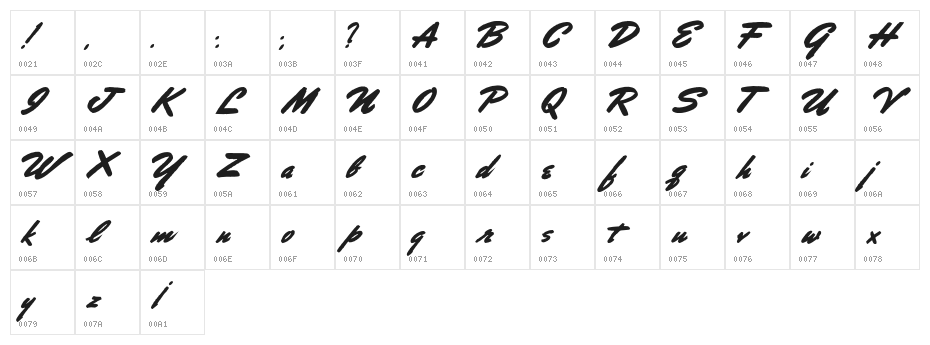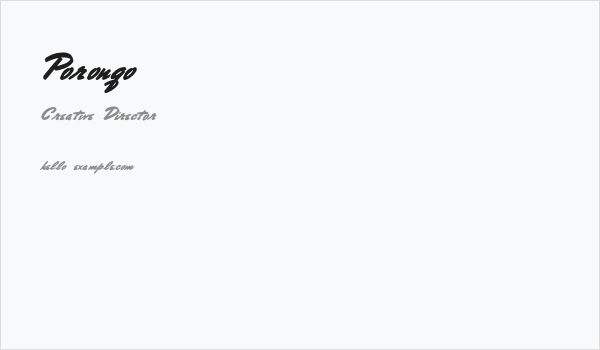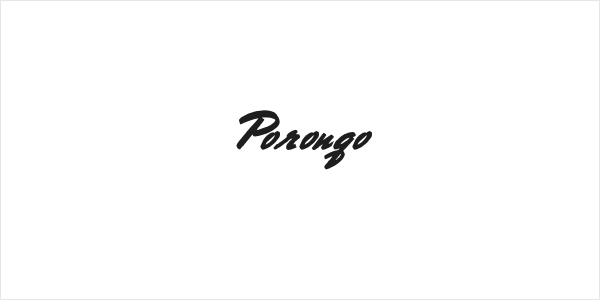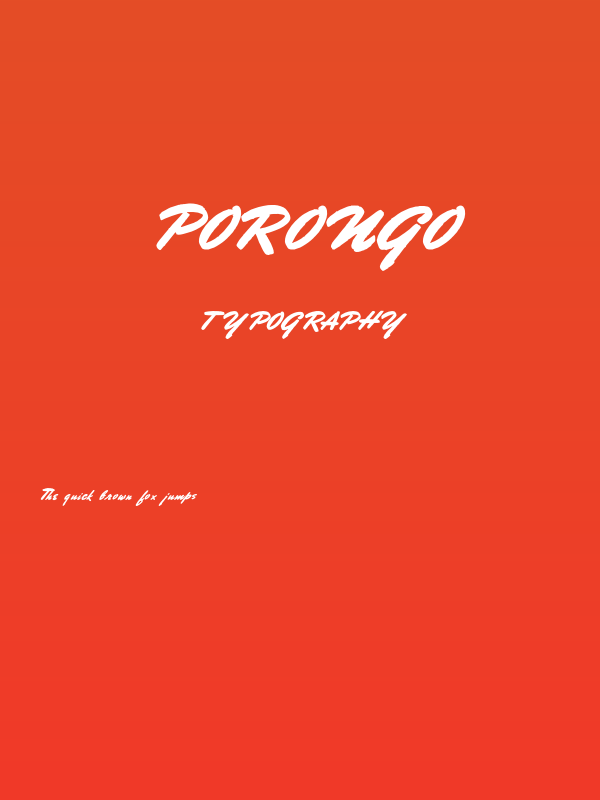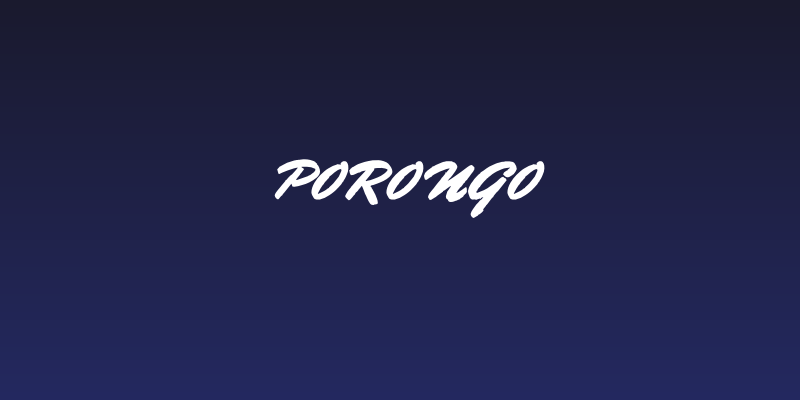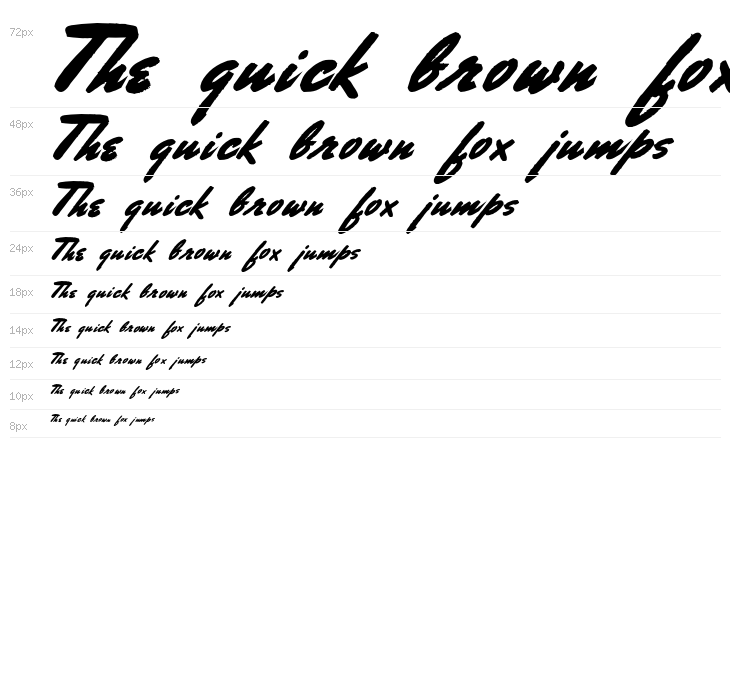
Porongo Font
Porongo Description
This font features a bold and dynamic script style, characterized by its fluid and connected letterforms. The strokes are thick and expressive, giving a sense of movement and energy. The uppercase letters are slightly more angular, while the lowercase letters maintain a smooth, cursive flow. The font's overall appearance is both modern and artistic, making it suitable for creative and impactful designs. The spacing between characters is tight, enhancing the cohesive look of the text. This font exudes a sense of confidence and flair, ideal for making a bold statement.
| Proposed Projects | Ideal for branding, logos, posters, and creative headlines. |